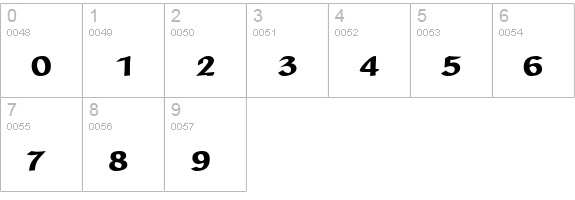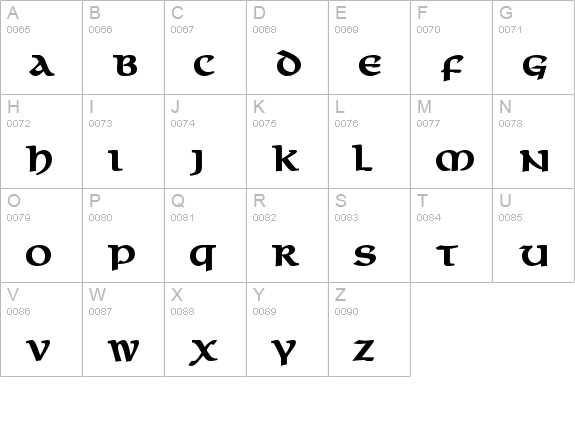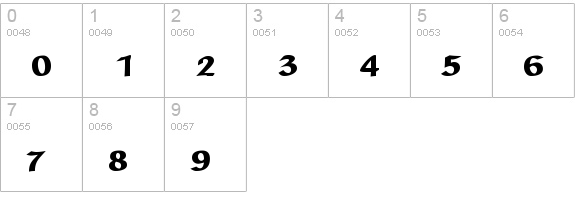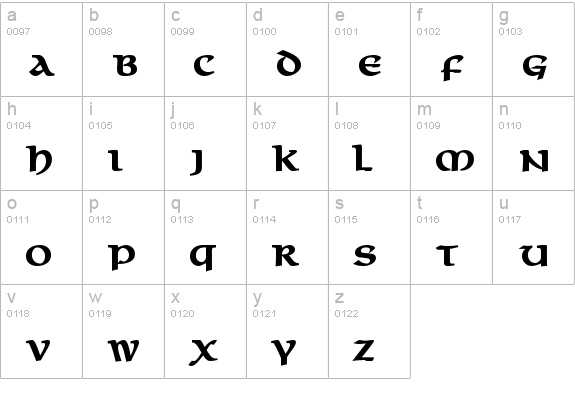
MacedonCapsSSK Bold Font Details
MacedonCapsSSK Bold is a strong, high-contrast variant in the MacedonCapsSSK typeface family \xE2\x80\x94 well suited to headlines, attention-grabbing titles, and strong calls-to-action.
The MacedonCapsSSK Bold font is a stunning display typeface that commands attention with its bold and powerful presence. Its strong and distinct letterforms make it perfect for headlines, titles, and other prominent design elements that need to make a statement. With its sleek and modern design, MacedonCapsSSK Bold exudes confidence and professionalism. Each letter is carefully crafted to maintain its legibility, even at larger sizes, ensuring that your messages are always clear and impactful. This font is freely available to download at FontsMarket.com, allowing designers and creatives to easily access and incorporate it into their projects. Whether you're working on a branding campaign, advertising materials, or creating eye-catching social media graphics, MacedonCapsSSK Bold will add a touch of elegance and sophistication to your designs. The versatility of this font allows it to seamlessly blend with various design styles, from contemporary to vintage-inspired projects. Its bold weight ensures that your text will stand out and grab attention in any context. With MacedonCapsSSK Bold, you can enhance the visual appeal of your designs and effectively communicate your message. So why wait? Download this captivating font for free at FontsMarket.com and see how it elevates your design projects to new heights.